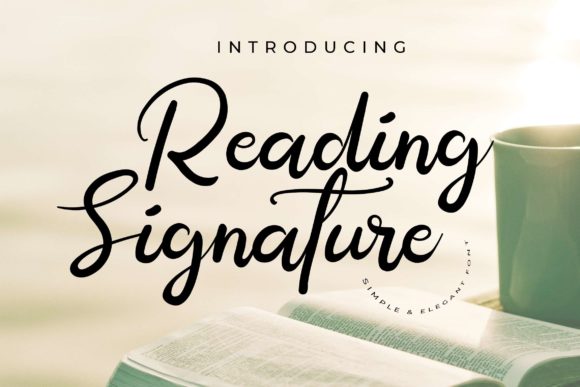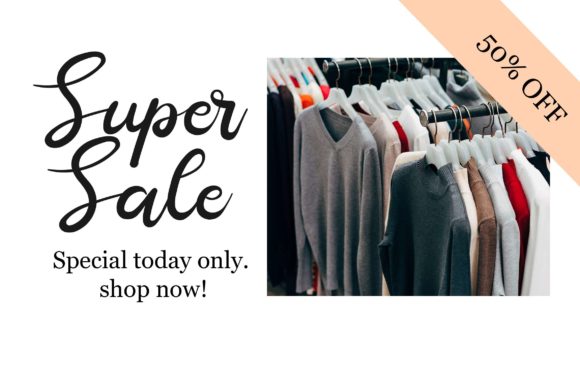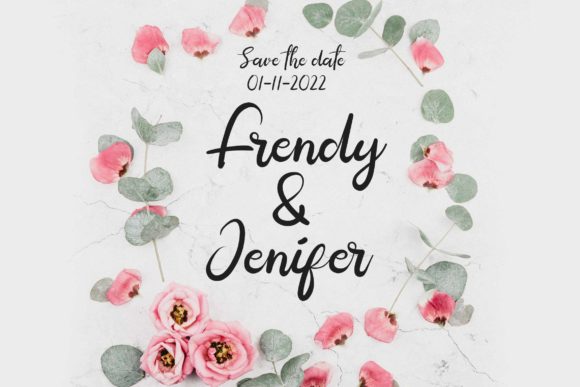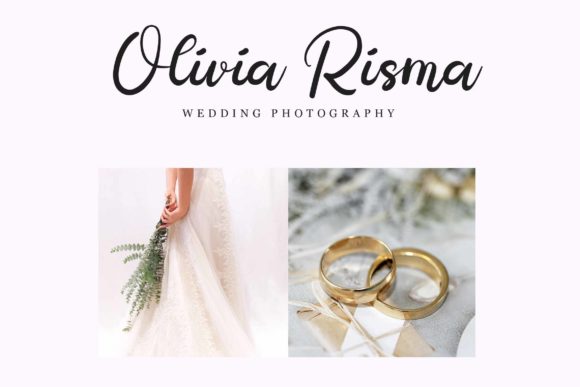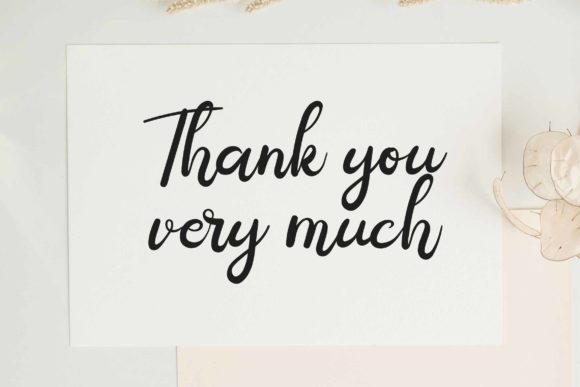
Reading Signature Font
About Reading Signature Font
Reading Signature is an elegant and simple, yet versatile handwritten font. This font would be ideal for writing wedding invitations, greeting cards, social media posts or any design that requires a romantic and elegant vibe. Each letter has a unique and beautiful touch, which will set your design apart.